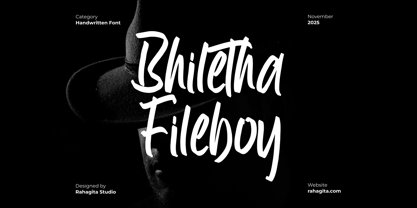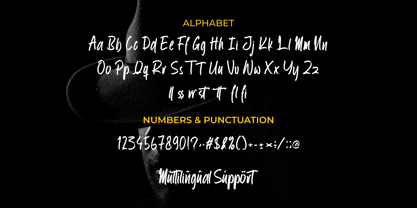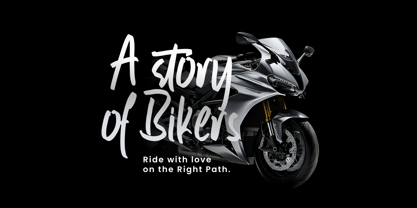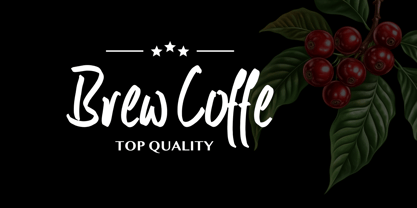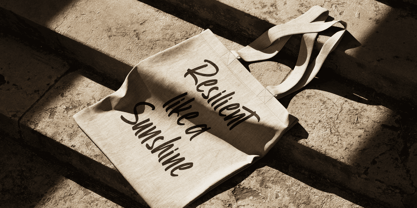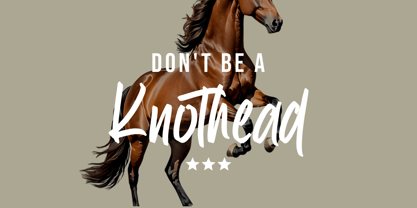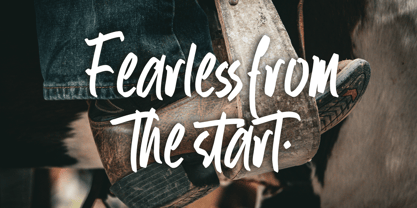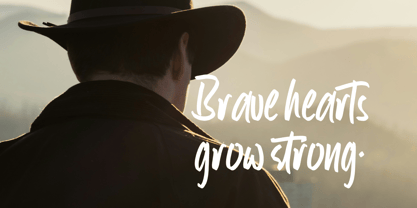
Bhiletha Fileboy
by RahagitaType
The Bhiletha Fileboy Font Family was designed by Setiadi Rahagita and published by RahagitaType. Bhiletha Fileboy contains 1 styles. More about this family
Introducing Bhiletha Fileboy, a bold and expressive handwritten brush font crafted by Rahagita Studio. With its confident strokes and raw energy, this font embodies the spirit of adventure, courage, and freedom. Perfect for branding, poster design, apparel prints, quotes, coffee packaging, biker merchandise, and logo typography, Bhiletha Fileboy brings an authentic hand-drawn vibe to your creative work. Whether you’re designing for modern masculinity, wild expression, or fearless motivation, Bhiletha Fileboy delivers powerful personality and striking readability. Fully equipped with ligatures and multilingual support, this font is ready to make your words stand out with strength and character.
Designers: Setiadi Rahagita
Foundry: RahagitaType